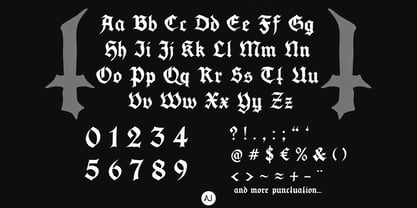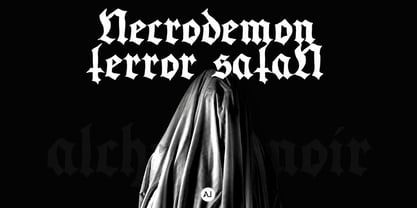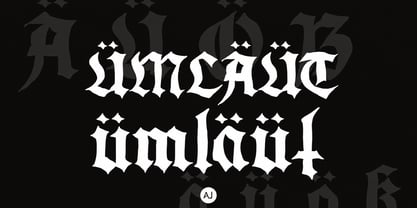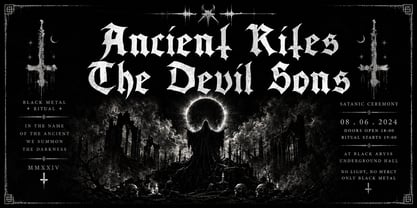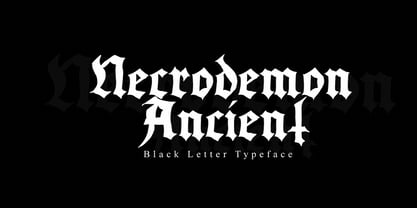
Necrodemon Ancient
The Necrodemon Ancient Font Family was designed by alwi azzali and published by Alchemynoir. Necrodemon Ancient contains 1 styles. More about this family
Necrodemon is a bold, horror-inspired blackletter typeface that combines dark medieval aesthetics with a mysterious and sinister atmosphere. Designed with sharp angles, dramatic strokes, and distinctive gothic details, this typeface captures the essence of ancient manuscripts, occult symbolism, and heavy metal culture while maintaining excellent readability for display purposes. Every character is carefully crafted to create a strong visual impact, making Necrodemon an ideal choice for projects that demand an intimidating, eerie, and unforgettable appearance.
Inspired by classic blackletter typography and modern horror design, Necrodemon delivers a unique balance between traditional gothic forms and contemporary display lettering. Its aggressive personality makes it perfect for creating eye-catching titles, logos, and branding that instantly stand out. Whether you're designing for dark fantasy, supernatural themes, medieval stories, or extreme music culture, Necrodemon provides the authentic character needed to strengthen your visual identity.
This typeface is highly versatile for a wide range of creative applications. Use it for horror movie posters, Halloween event promotions, haunted attraction advertisements, heavy metal or black metal band logos, album covers, book covers, gaming titles, fantasy artwork, YouTube thumbnails, streaming graphics, apparel designs, merchandise, stickers, tattoo-inspired artwork, product packaging, social media graphics, branding projects, invitations, and any design that requires a bold gothic presence.
Necrodemon also works beautifully for clothing brands, streetwear collections, craft products, and custom typography where a dark, vintage, or medieval aesthetic is desired. The dramatic letterforms create a powerful visual hierarchy, making headlines and display text instantly recognizable while adding an atmosphere of mystery and darkness.
Whether you're a graphic designer, illustrator, content creator, game developer, or branding professional, Necrodemon offers a distinctive typographic voice that elevates your creative work. Its expressive forms allow designers to build memorable compositions without sacrificing legibility, making it suitable for both digital and print projects.
If you're searching for a typeface that embodies horror, gothic elegance, medieval tradition, and bold visual storytelling, Necrodemon is the perfect choice. Bring darkness, mystery, and powerful character into your next project with a font designed to leave a lasting impression and transform ordinary typography into extraordinary visual experiences.